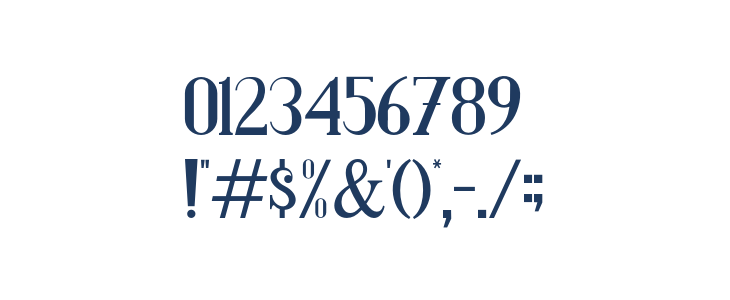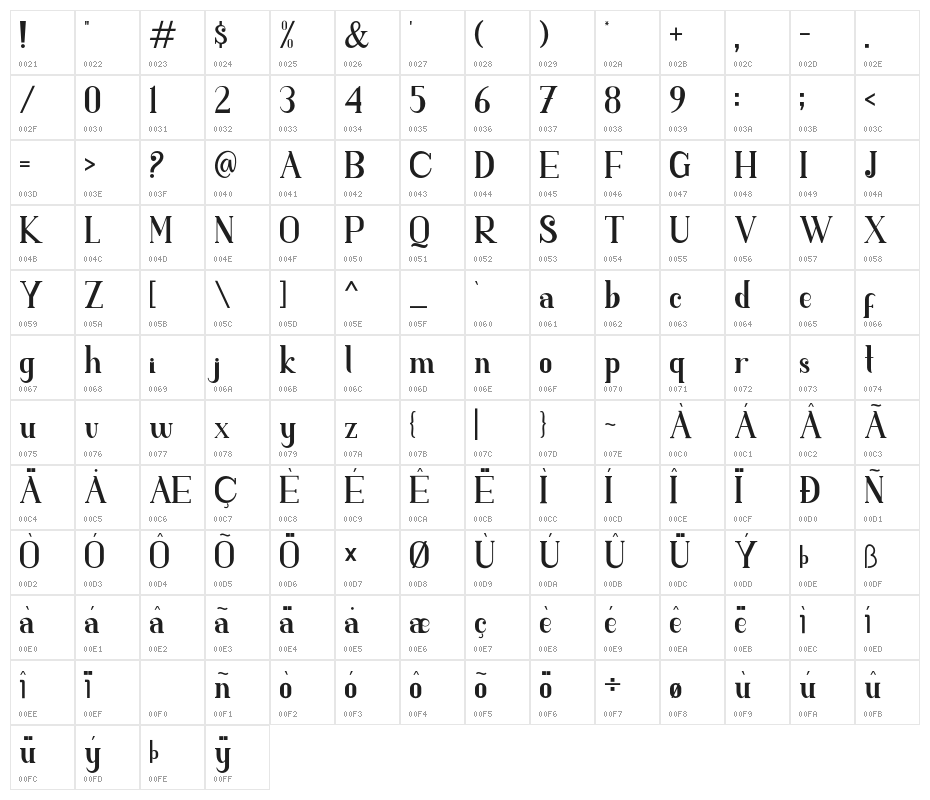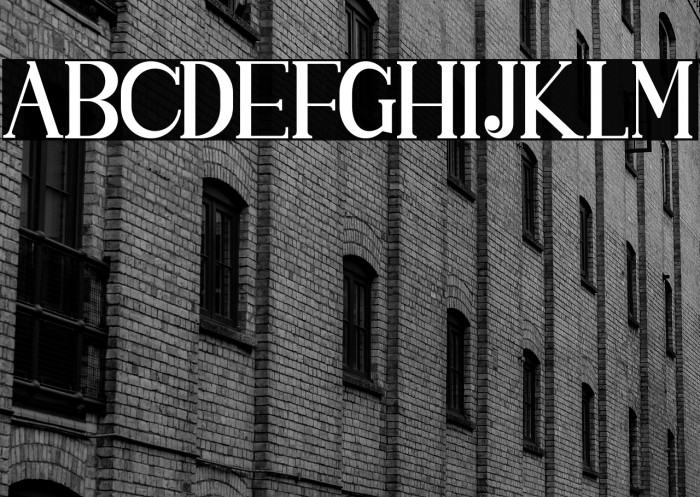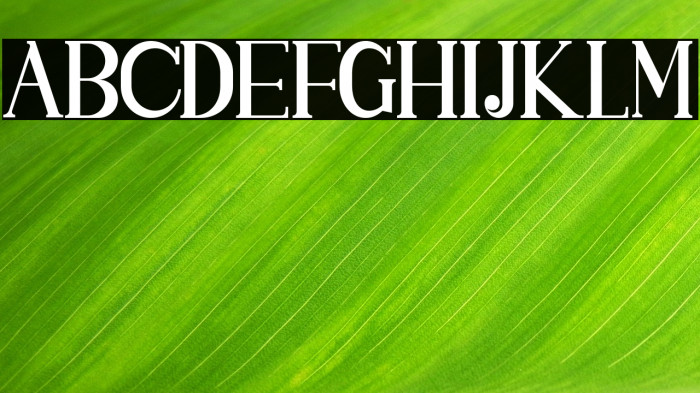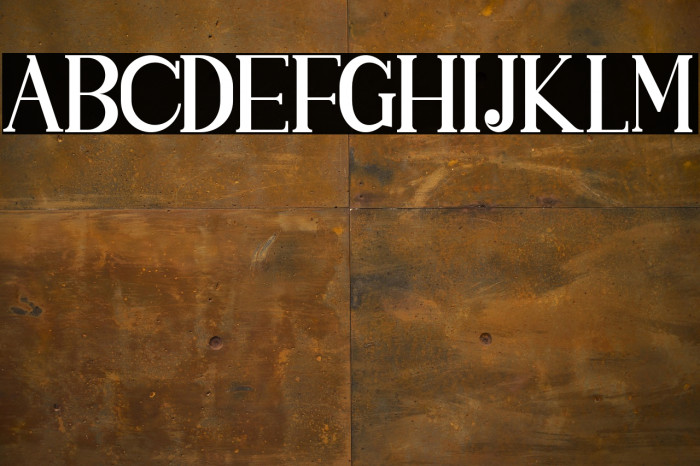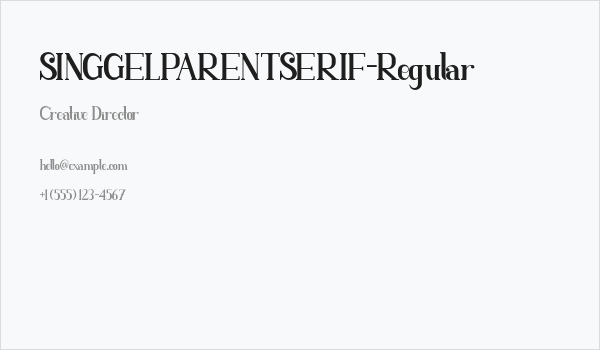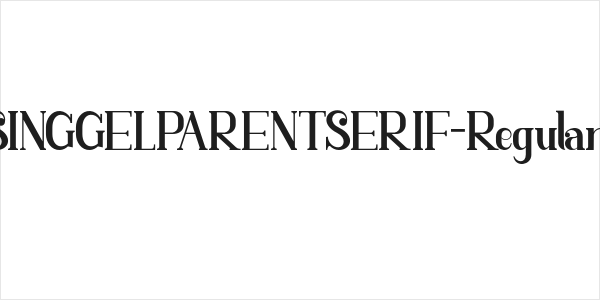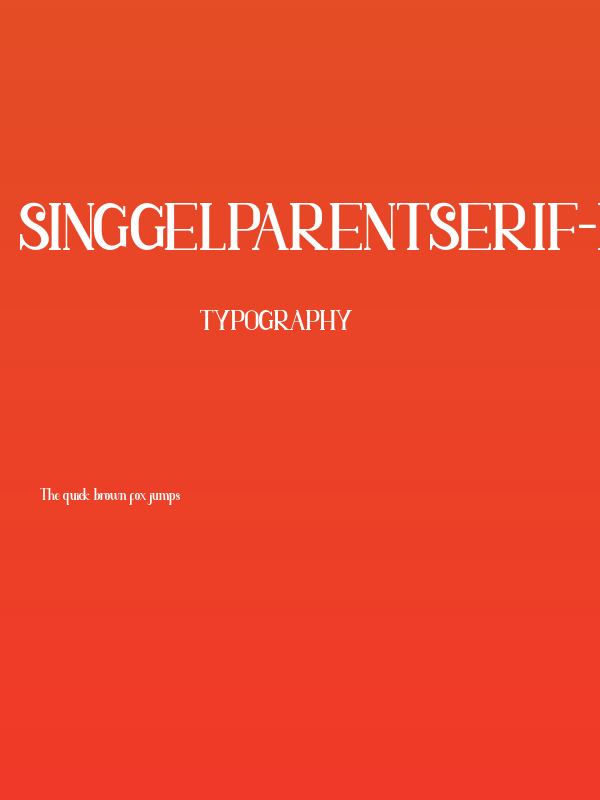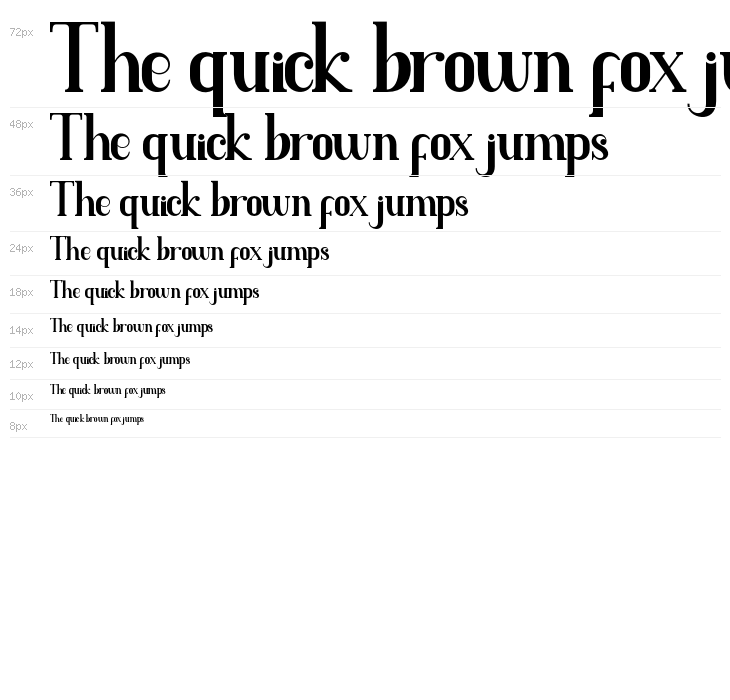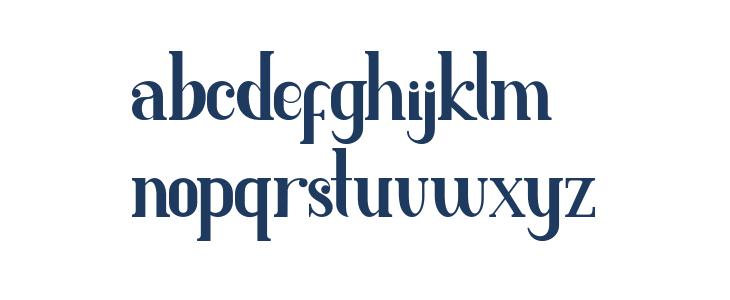
SINGGELPARENTSERIF-Regular Font
SINGGELPARENTSERIF-Regular Description
This font features a classic serif style with a modern twist, characterized by its elegant and refined letterforms. The uppercase letters are tall and commanding, with distinct serifs that add a touch of sophistication. The lowercase letters maintain a consistent style, offering a smooth transition between characters. The numerals are bold and clear, ensuring readability. Special characters are well-integrated, maintaining the overall aesthetic. This font's design is both timeless and versatile, making it suitable for a variety of applications.
| Proposed Projects | Ideal for editorial design, book covers, branding, and high-end product packaging. |